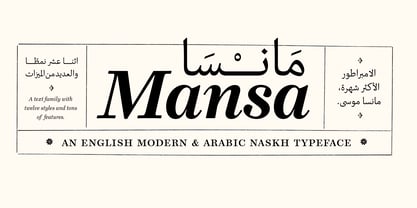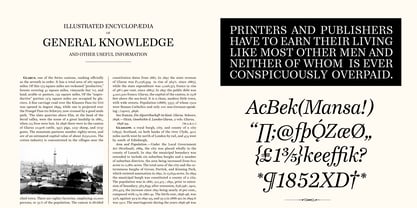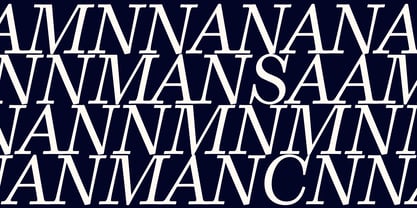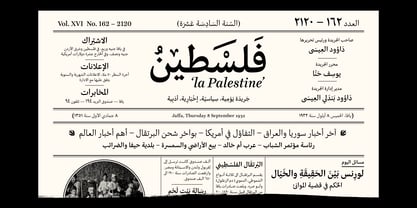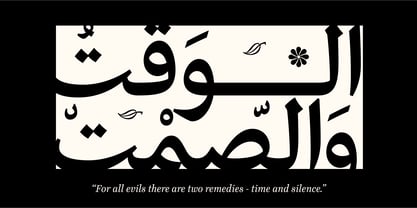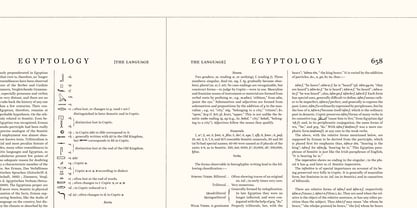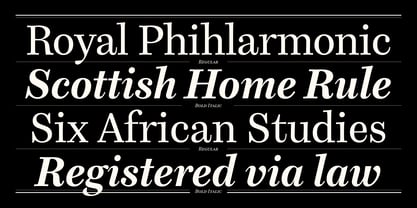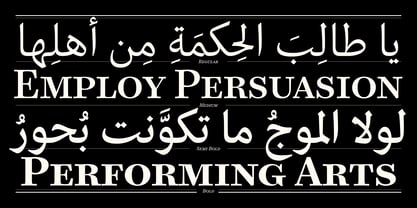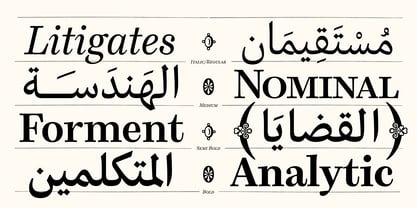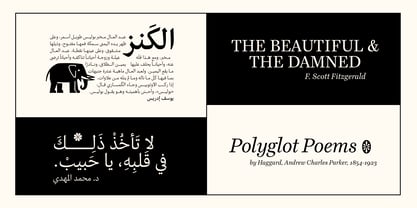
Mansa Arabic Text
The Mansa Arabic Text Font Family was designed by David Williams and published by Manchester Type Foundry. Mansa Arabic Text contains 4 styles and family package options. More about this family
Mansa is a classic typeface designed for readers. Whether its digital or print, London or Dubai, Mansa brings good-manners and elegance to all sorts of typographic content. It’s inspired by 19th century modern faces and Naskh fonts and it features four Arabic naskh, four Roman & four italic weights. It is a modern, multi-script editorial typeface. Mansa supports Latin script languages of western, central and eastern Europeas well as Arabic script languages including Arabic, Farsi, Kurdish, Sindhi & Urdu.The fonts come in two variations – Mansa Text (Latin Roman and Italic styles) or Mansa Arabic Text (Arabic Naskh & Latin Roman styles). Each design is expressive and ornamental, echoing the flair and grace of publishing’s golden era.​